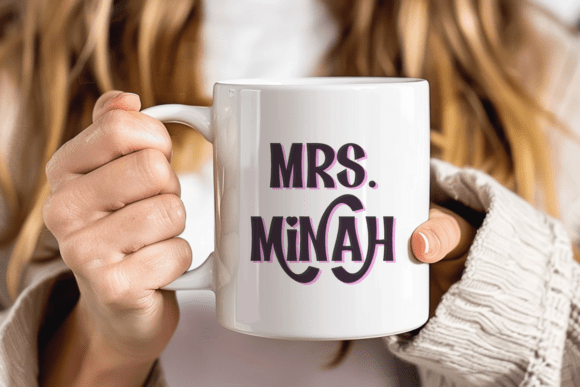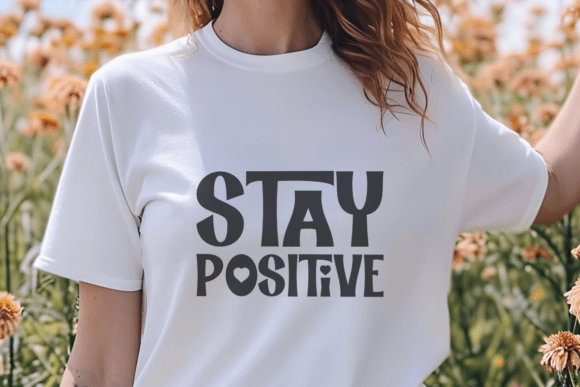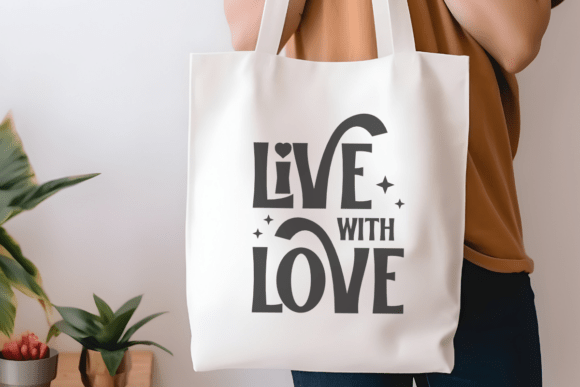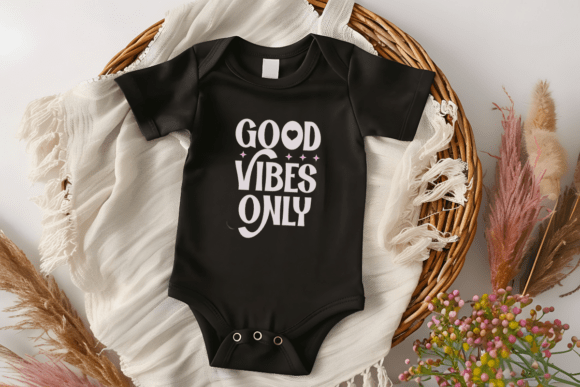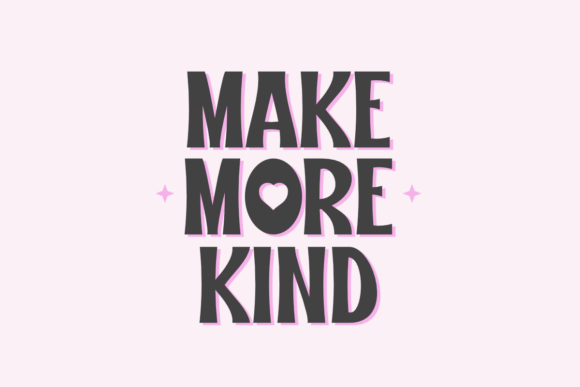
Introduction to Love Time Font Font
Fonts play a crucial role in design, and the Love Time Font font is a typeface that brings both character and versatility to any project. Whether you’re working on a branding project, a website, or a print design, the Love Time Font font offers a unique style that can elevate your work.
Introducing Love Time – a whimsically endearing block font that lends a touch of playful charm to any design.
It perfectly aligns with retro aesthetics, highlighting their vintage appeal Procreate artists will find it a wonderful tool to add unique quirks to their digital canvases.
Key Features of Love Time Font Font
Why Choose Love Time Font Font?
The Love Time Font font is more than just a typeface – it’s a design tool that helps you communicate your message with style and clarity. Its unique character set and versatile design make it suitable for a wide range of applications, from elegant invitations to bold headlines.
With its carefully crafted letterforms and balanced proportions, the Love Time Font font ensures readability and visual appeal across all mediums.
What makes Love Time Font font special?
The Love Time Font font stands out with its unique design, exceptional readability, and versatility across various design applications.